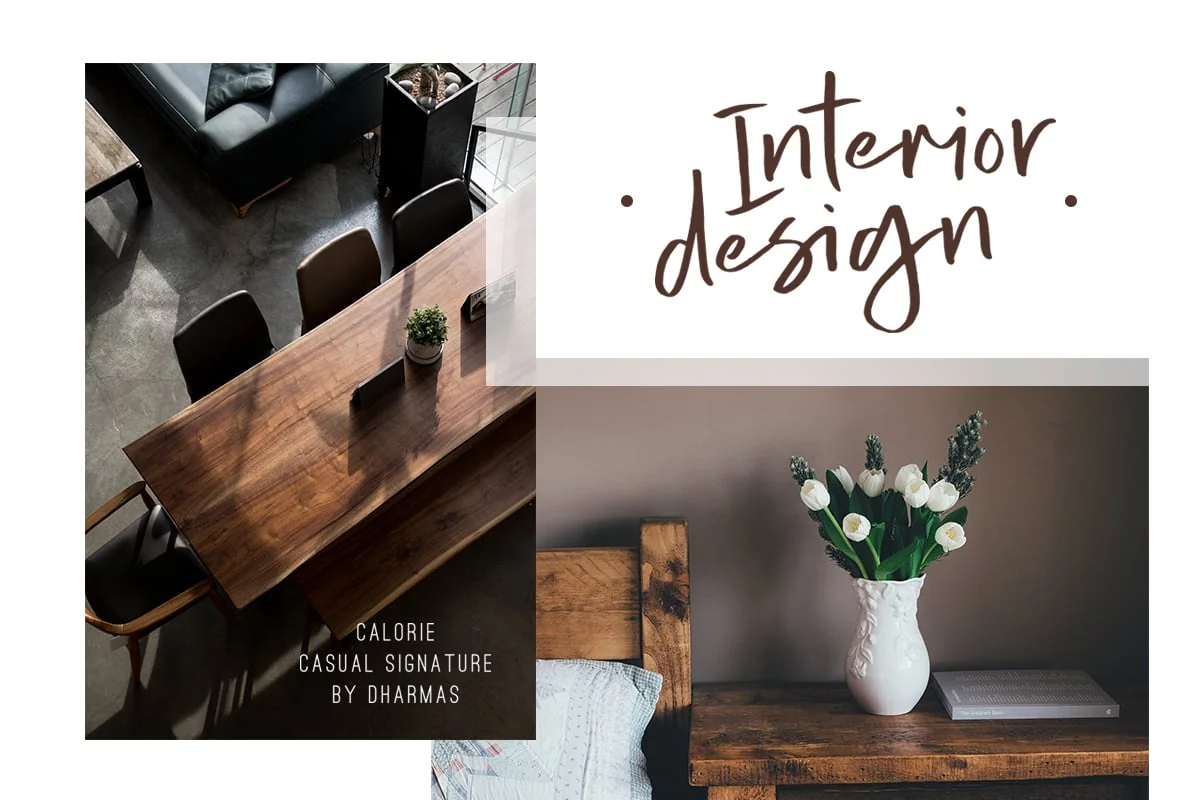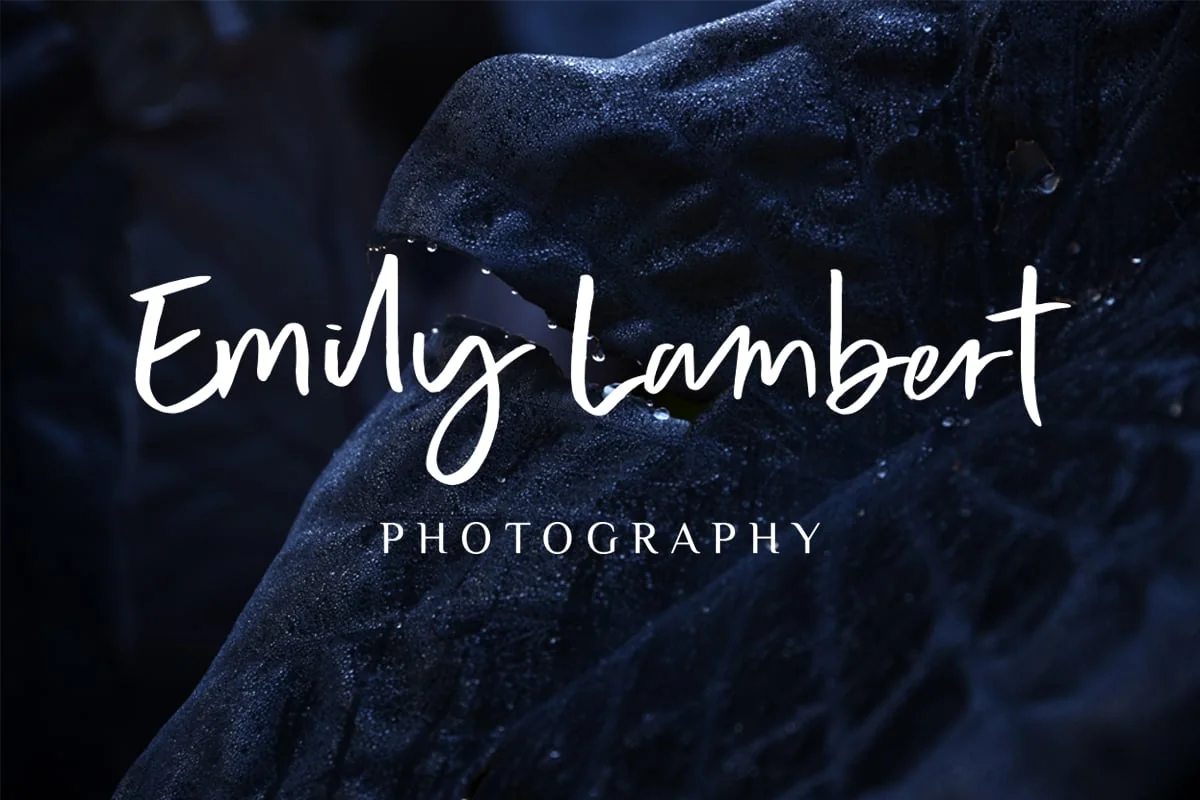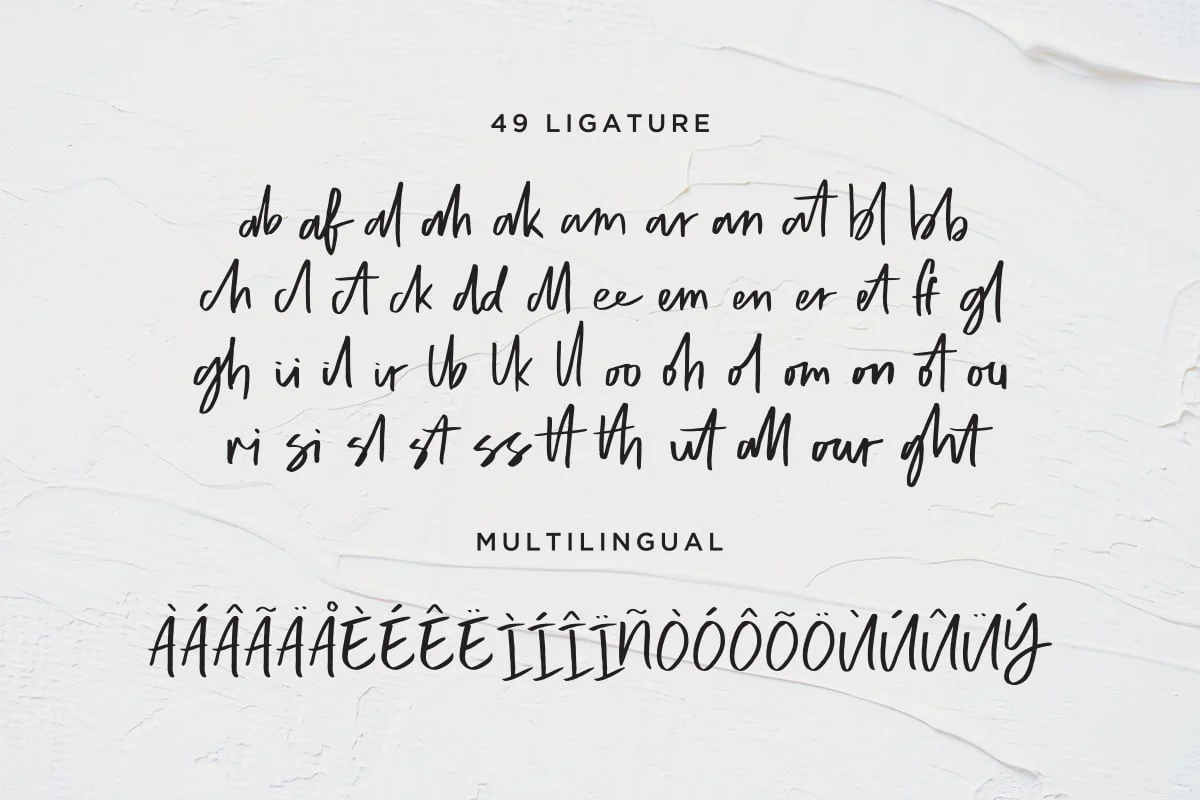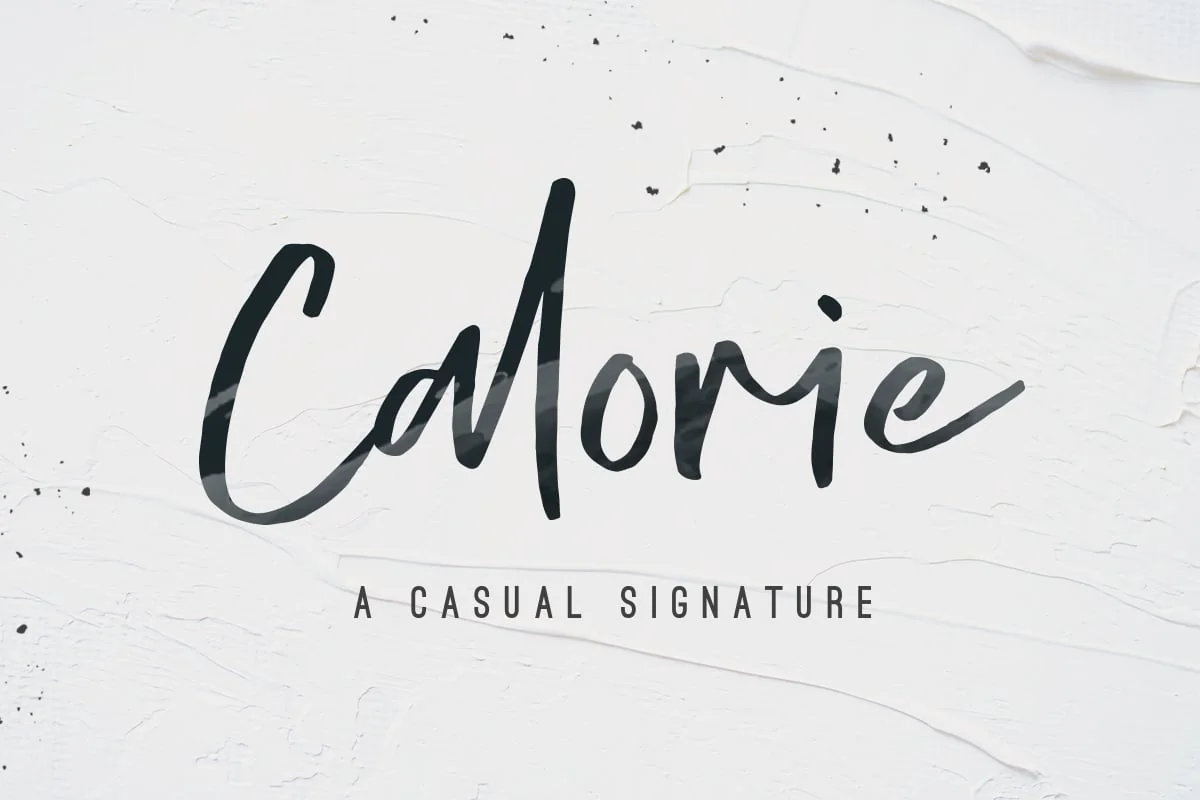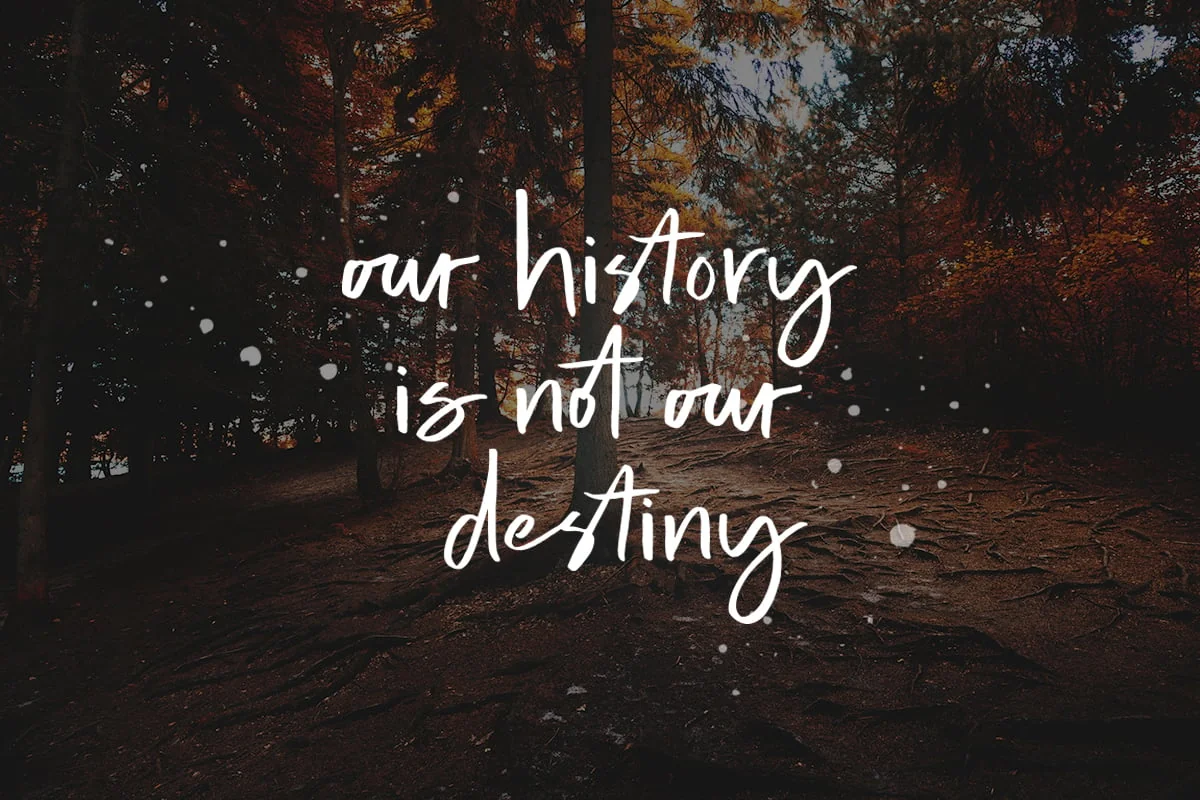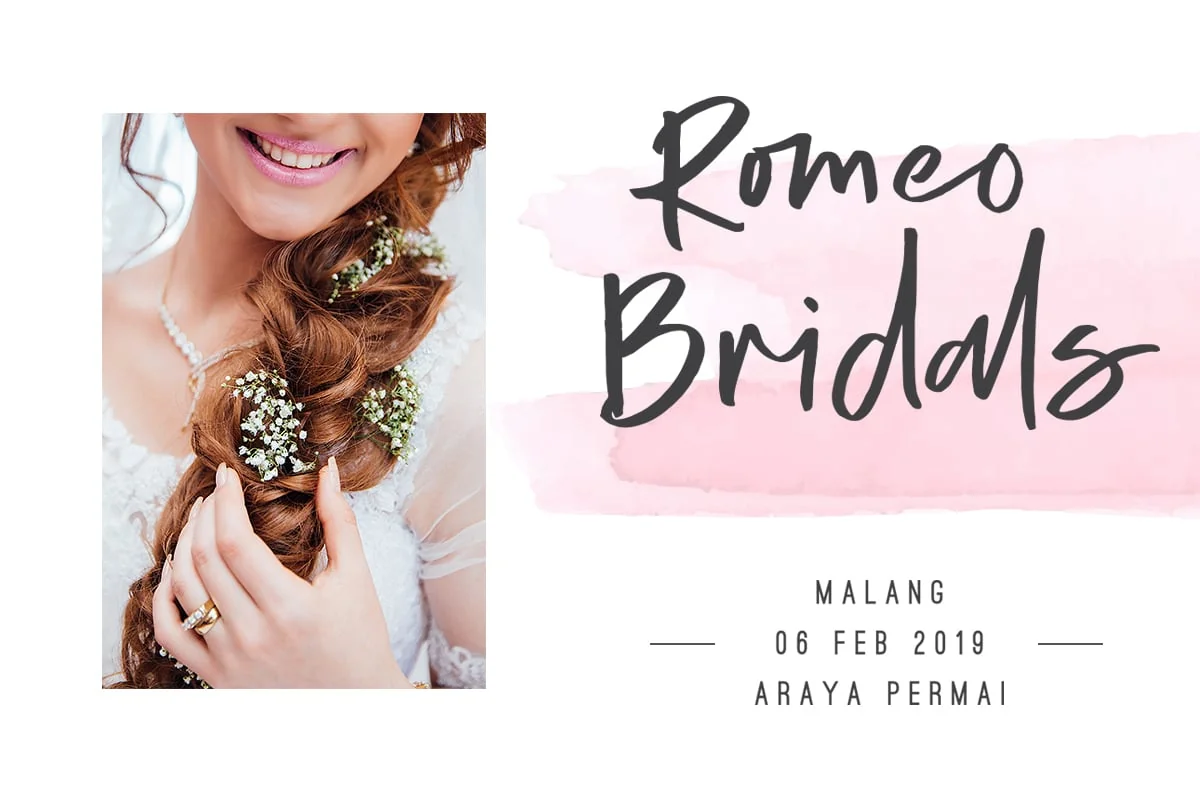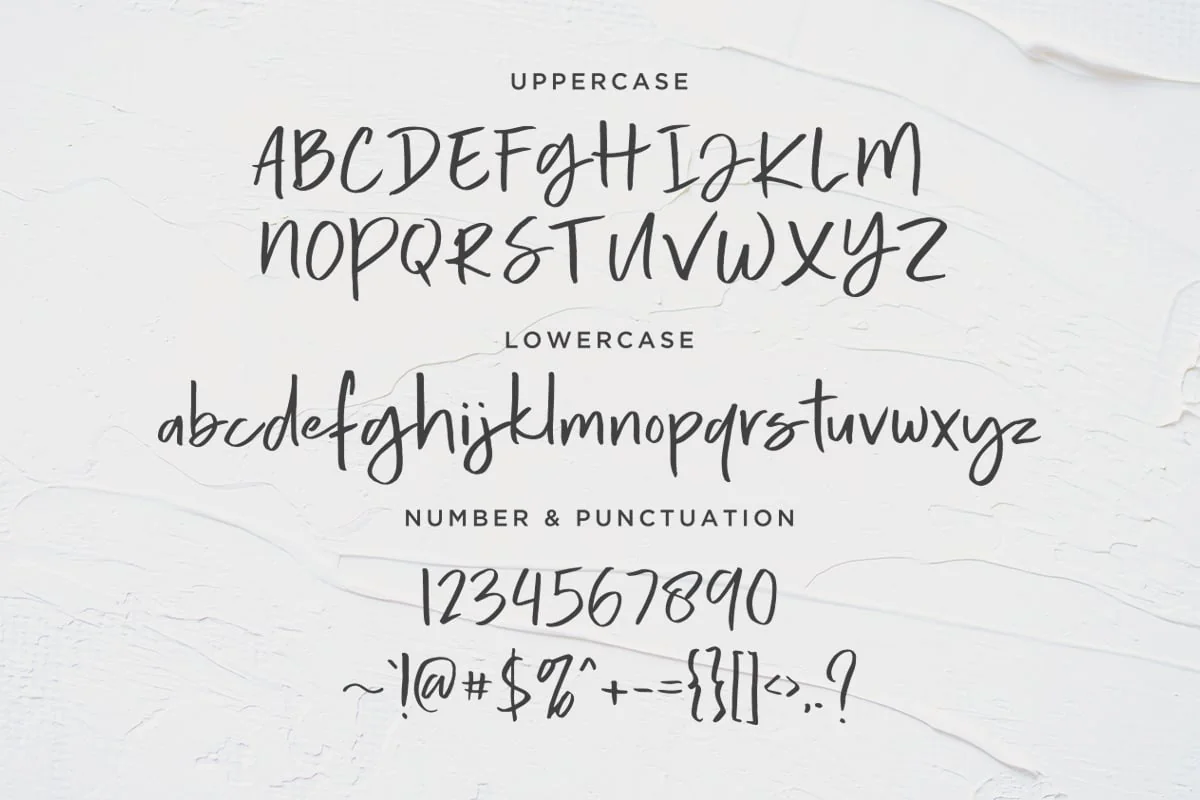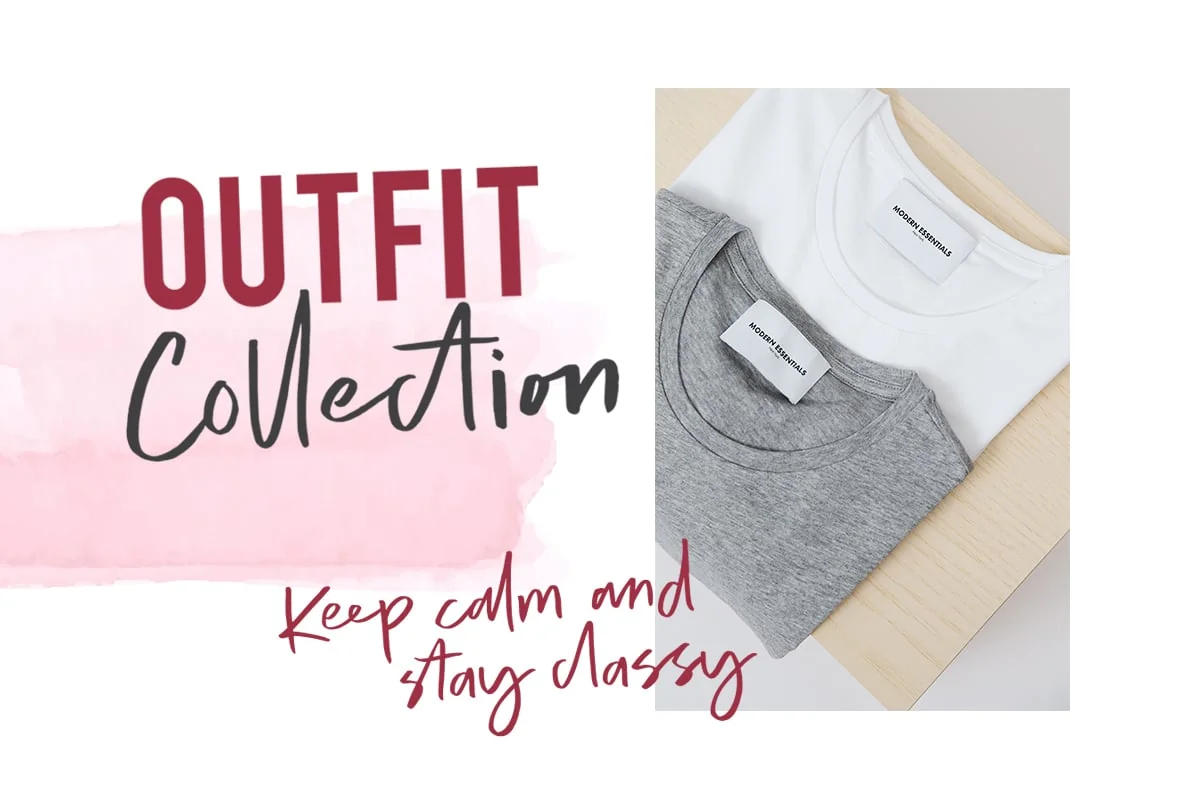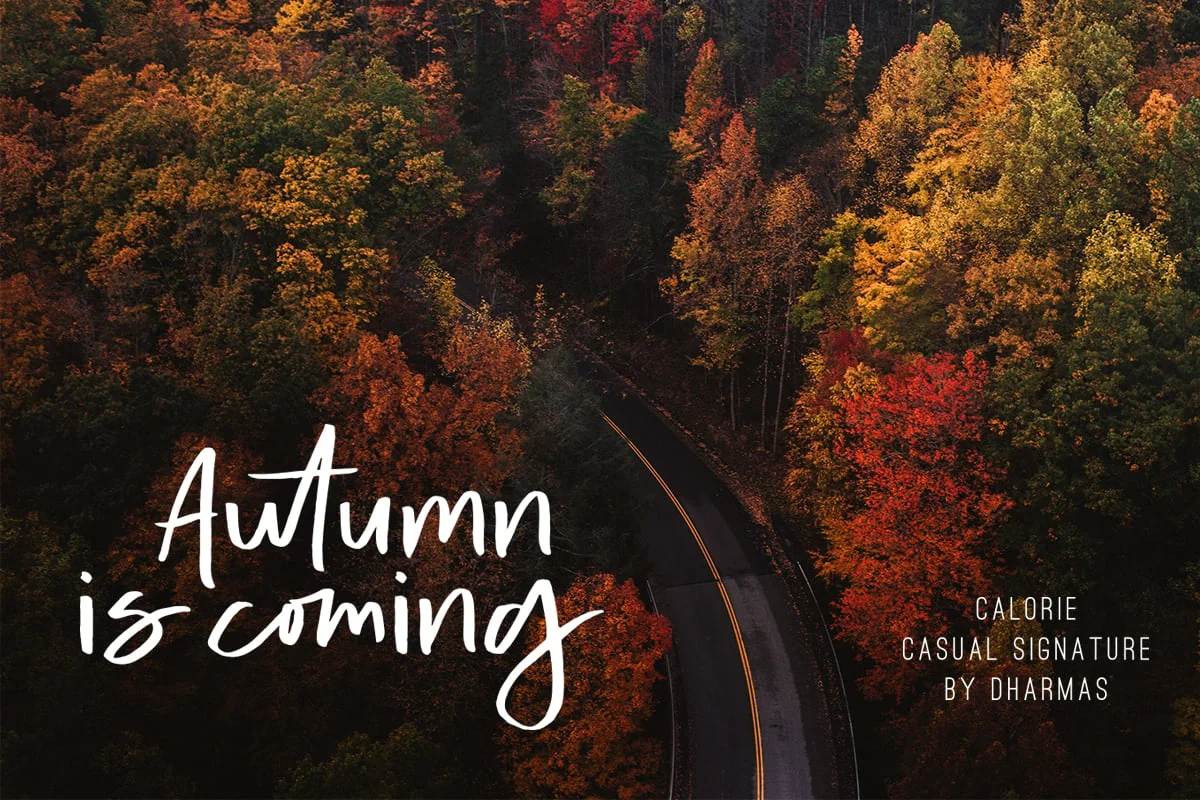
Calorie – Logo Font
New Casual Signature font, Calorie!
Calorie is a rustic, textured script that works great for logos, branding, quotes, social media, and even lettered wrapping paper!
Calorie includes non-English characters, .ttf, .otf, and files for both print and web use. It would make beautiful signage with a Cricut machine or looks beautiful in printed materials, like when it’s embossed on wedding invitations.
It also includes 49 ligatures to help keep it looking totally hand-made and automatic contextual alternates, so the font will automatically switch from the regular letters to the alternates when there’s a risk of a pattern developing!
*Includes Capital and Lowercase letters, Multilingual, and 49 Ligatures